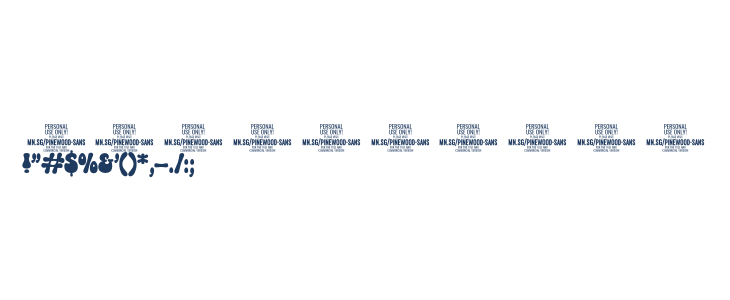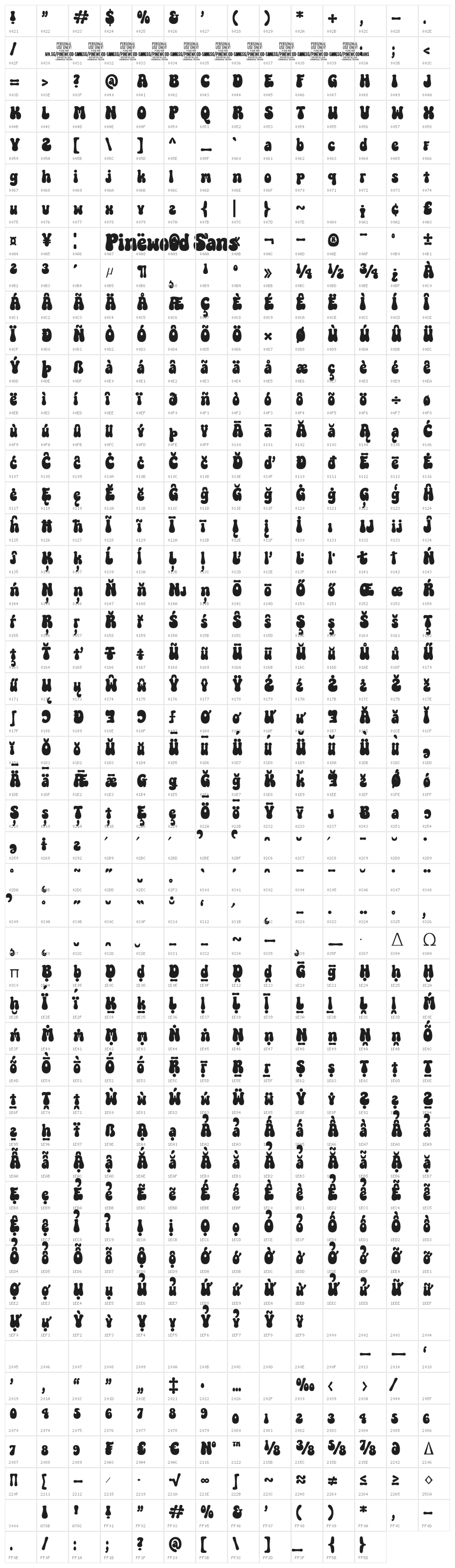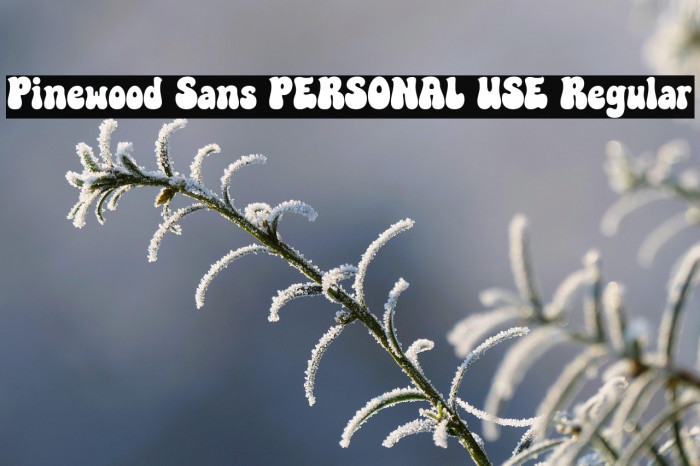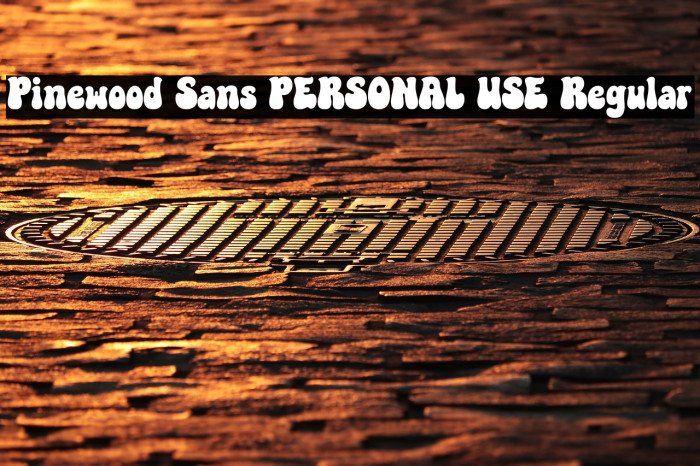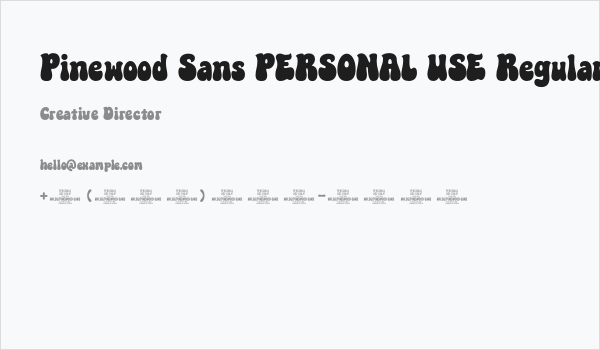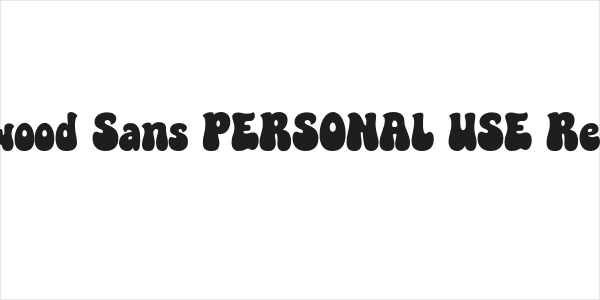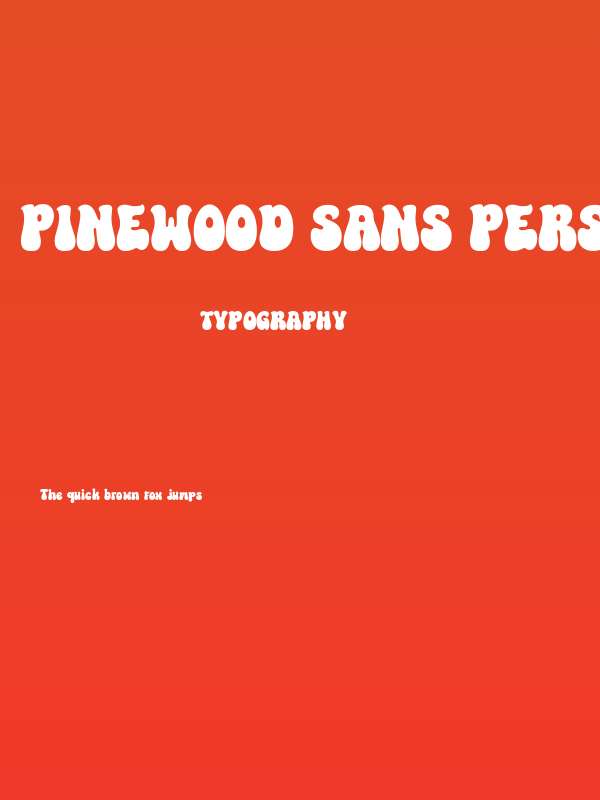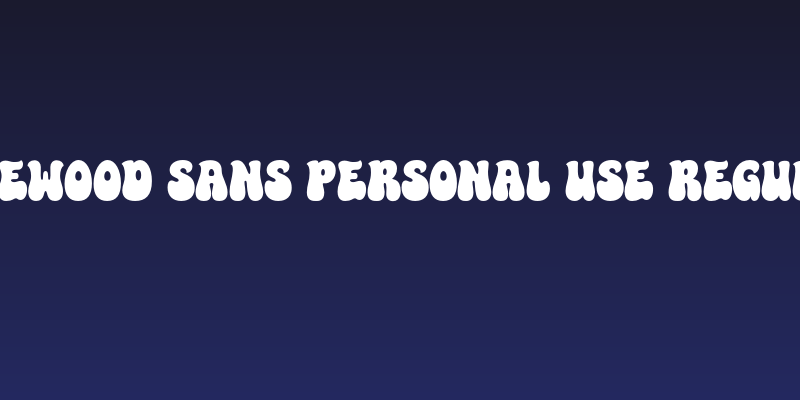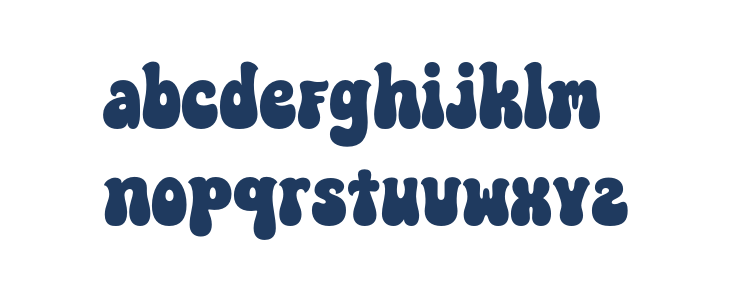
Pinewood Sans PERSONAL USE Regular Font
Pinewood Sans PERSONAL USE Regular Description
This font features a bold, playful design with rounded, bubbly characters that convey a sense of fun and whimsy. The letters are thick and have a consistent stroke width, giving them a uniform appearance. The style is reminiscent of retro or vintage designs, with a touch of modern flair. The characters are closely spaced, enhancing the compact and cohesive look of the text. This font is highly decorative, making it ideal for eye-catching headlines or creative projects that require a unique and engaging typeface.
| Overall Style | Vintage, Decorative |
| Proposed Projects | Perfect for children's books, playful branding, event posters, and creative advertising campaigns. |